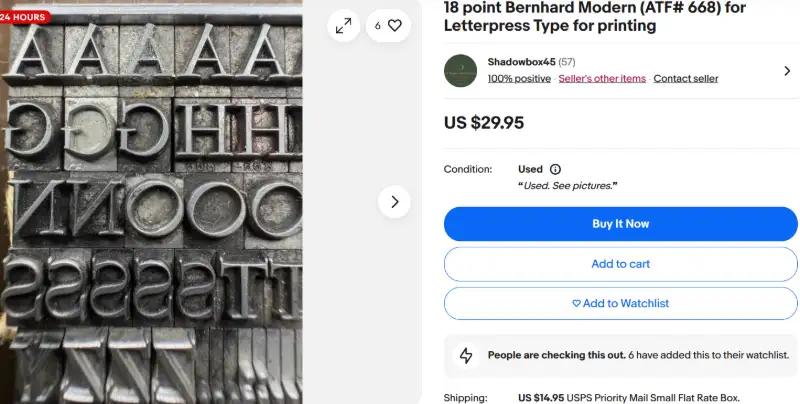
18 point Bernhard Modern (ATF# 668) for Letterpress Type for printing*
"In 1937 several characters of Nernhard Booklet and Italic (q.v.) were redrawn by Lucian Bernhard, the original designer, at the request of ATF, and it was reissued as Bernhard Modern Roman and Italic. In 1938 Bernhard Modern Bold and Bold Italic were added, also drawn by Bernhard. They are lively and sparkling faces, precise but not mechanical. Since H and m, the characters with the series number stamped on the shoulder, were not redesigned, some fonts of Bernhard Modern Roman appear to have been preduced with the same series number (559) of the earlier Bernhard Booklet. "*
* Mac McGrew, "American Typefaces of the Twentieth Century", Second Revised Edition, p. 33.
NOTE: Harvested from the private collection of Dave Churchman, APA 308. You may have seen this font in the chaotic background of the letterpress documentary, "Pressing On".